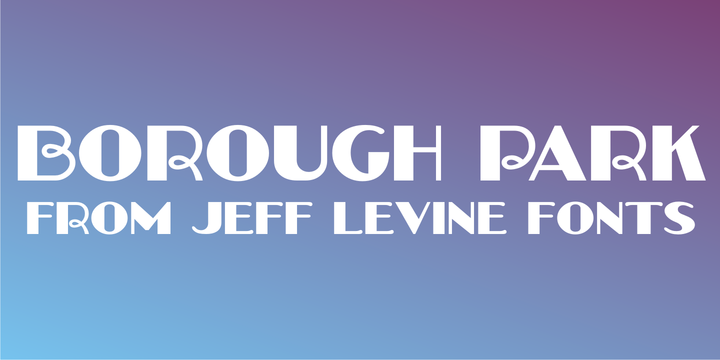
Borough Park JNL
by Jeff Levine
Borough Park JNL is named for a neighborhood in the southwestern part of the borough of Brooklyn, NY and was modeled from hand lettering found on vintage sheet music.